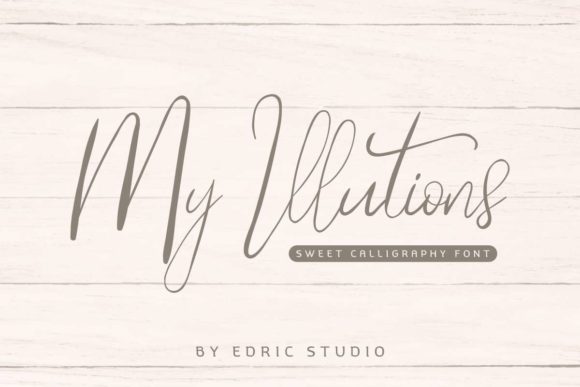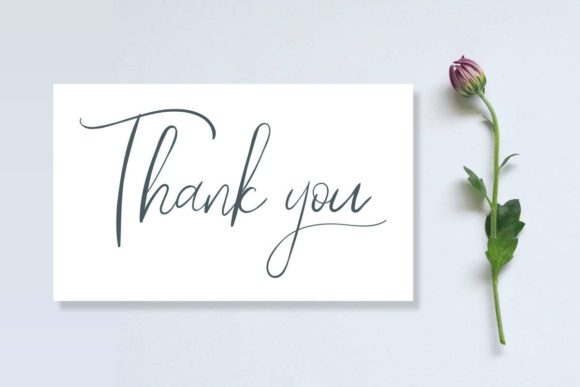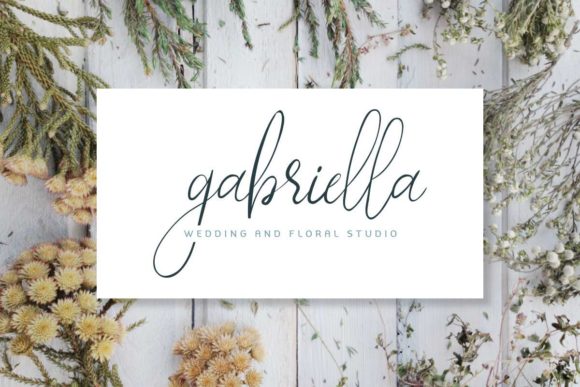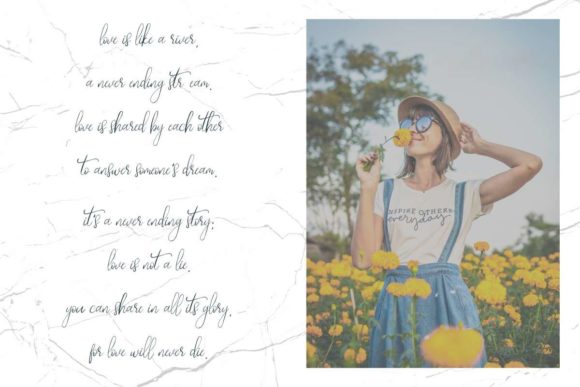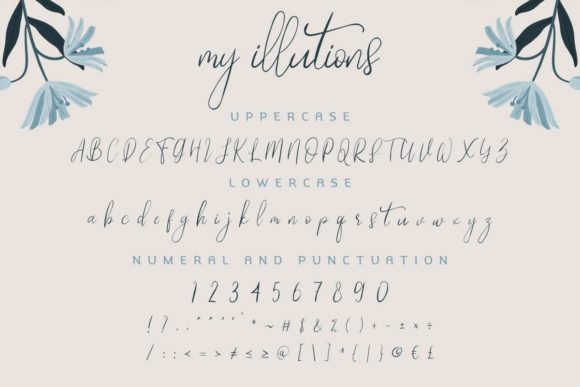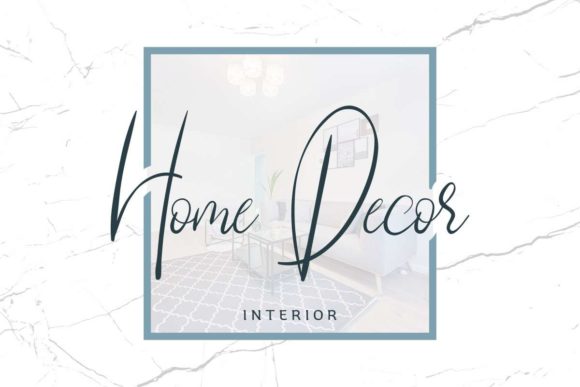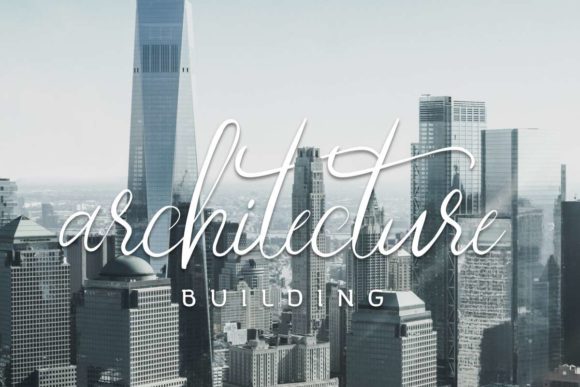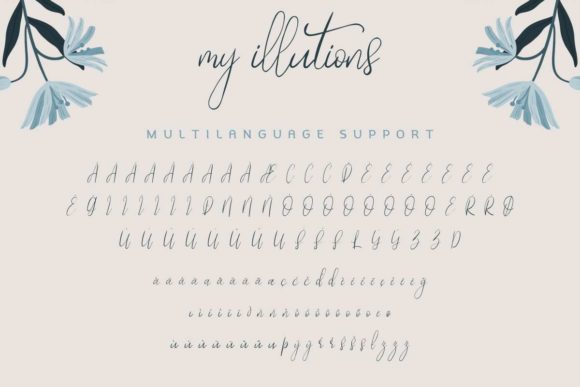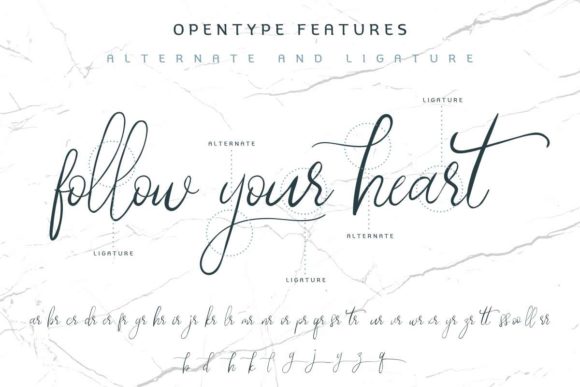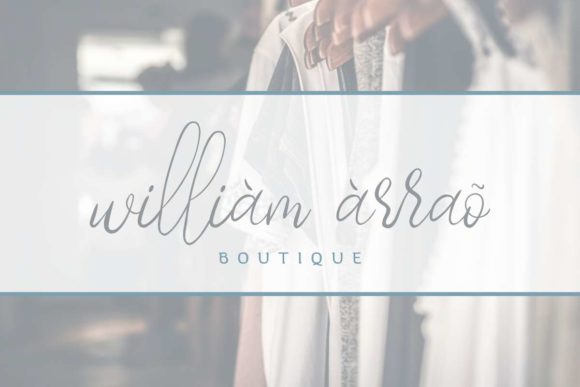
My Illutions Font
My Illutions is a gorgeously romantic and playful script that pays homage to classic calligraphy. Fall in love with its rich swashes.